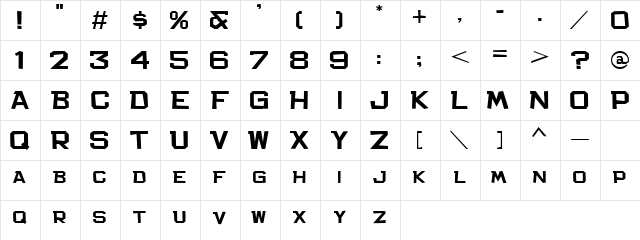
Padroomy square Regular
Design Context for Padroomy square Typeface
Padroomy square takes a measured approach to typography — its balanced proportions and neutral character make it a reliable workhorse for both digital and print work.
Pro Tip: Use Padroomy square in both headline and body roles to test its range before committing to a single application.